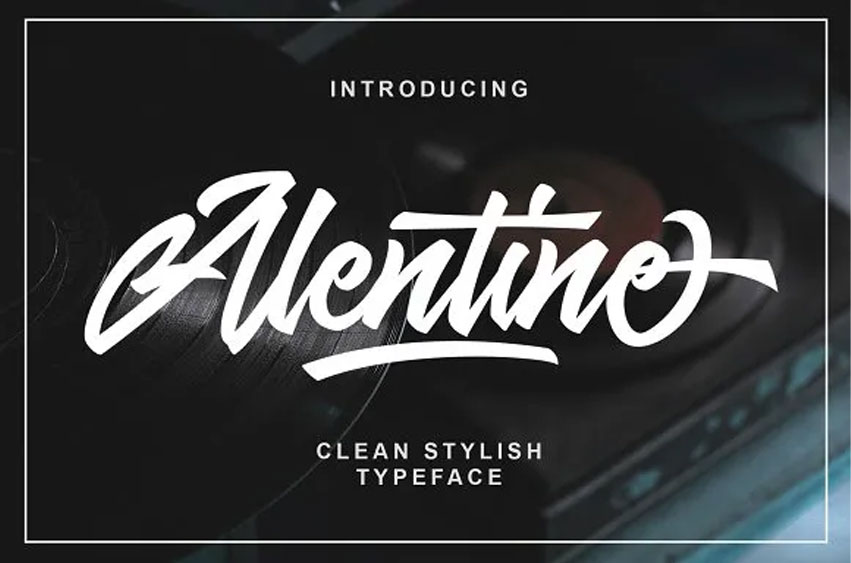
Alentine Font
Alentine Font by Blankids Studio! Alentine itself was developed as an official font and the link to buy is Creativemarket where it can be purchased today for free download! Alentine is a pretty and classical script font with some delicate sharpen and thin strokes that make it a good font to look at: great to use.
Alentine font can be used for logos, nametags, quotations and other texts, packaging merchandise and also in greeting cards. It presents a composition of its upper- and lower-case letters alongside other symbols and numbers that makes it perfect to be used for variety.